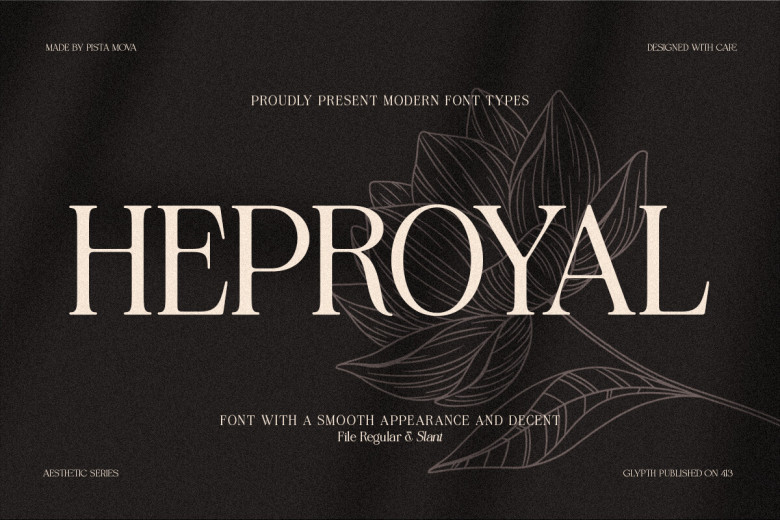
Heproyal Font
Heproyal is one of the soft and very elegant fonts which is very suitable for logo and branding purposes. Again a soft serif typeface, with classy but modern looking at the same time. It is fitting to use with your branding, logo, wedding, social media, ad, product packaging, product, label, photography, watermark, invite, letterhead, and any project, designed at a considerably high-legibility font.
Heproyal Serif Font